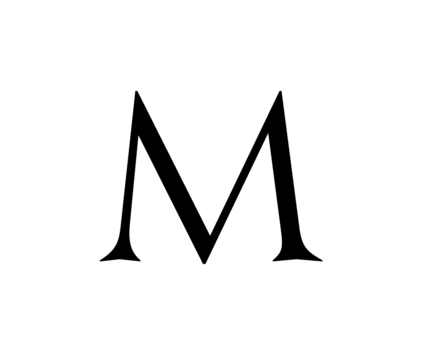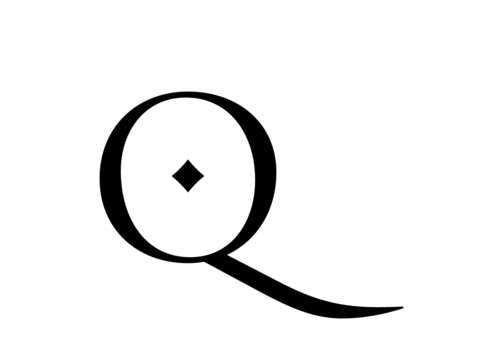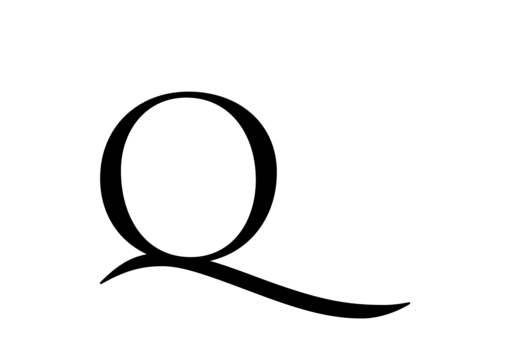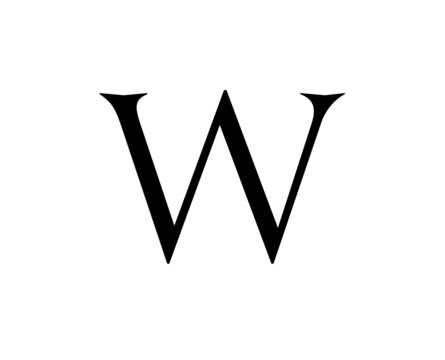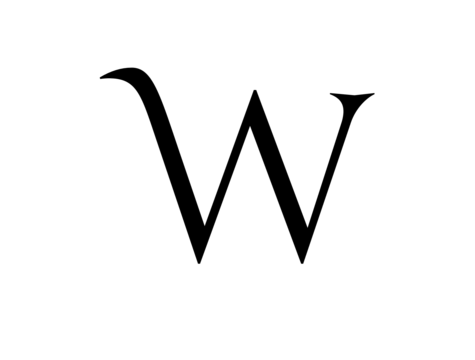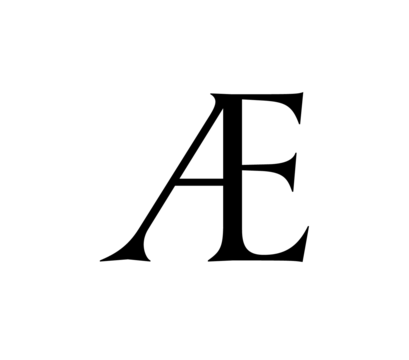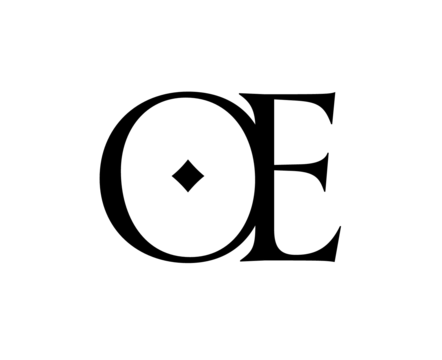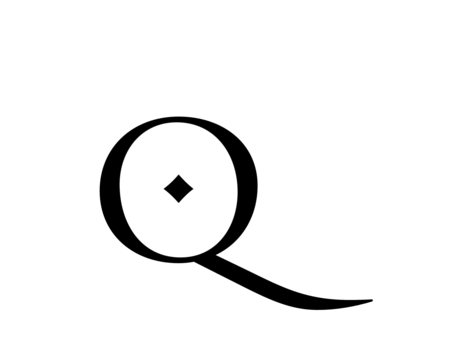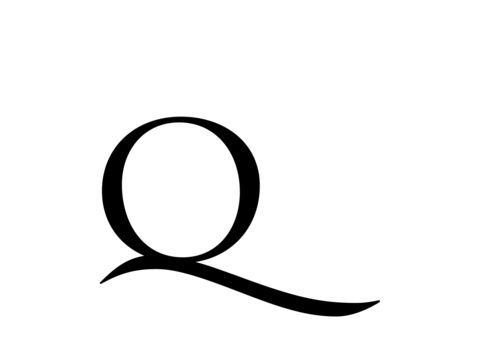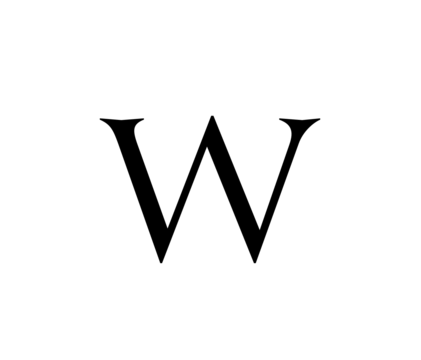
Troy is a pair of related sans and serif titling fonts. Each version is available in a single weight. The fonts’ lowercase letters all take the form of small capitals. Particularly the serif font – simply called Troy – is reminiscent of inscriptional letterforms. This tip of the hat to the very origins of our Roman capital letters gives the typeface an immediate feeling of formality and solemnity. Troy Sans, while sharing Troy’s proportions, feels more contemporary – although its letters would not be out of place on an inscription, either. Each of the fonts contain several alternate letterforms. In Troy, some of the alternate letters contain a mystical feeling; in Troy Sans, the same alternates look almost medieval, particularly ‘A’, ‘E’, ‘G’, ‘a’, ‘e’, and ‘g’. Other alternate characters are more sober versions of the default letterforms: in their default state, for instance, the ‘O’, ‘Q’, ‘o’, and ‘q’ each have a dot inside of their counters. The alternate versions of those letters are dotless. There are three versions of the ampersand in each font, too, as well as eighteen ligatures. Included among those are ligatures like ‘LI’ and ‘CO’, where the second letter is cradled inside of the counter of the first, as well as doubled letters like ‘NN’, ‘OO’, and ‘TT’ that were found in Ancient Roman inscriptions. The Troy fonts were designed by Ilya Naumoff, a graphic and typeface designer in Paris.
Family Name | Troy |
Classification | Sans |